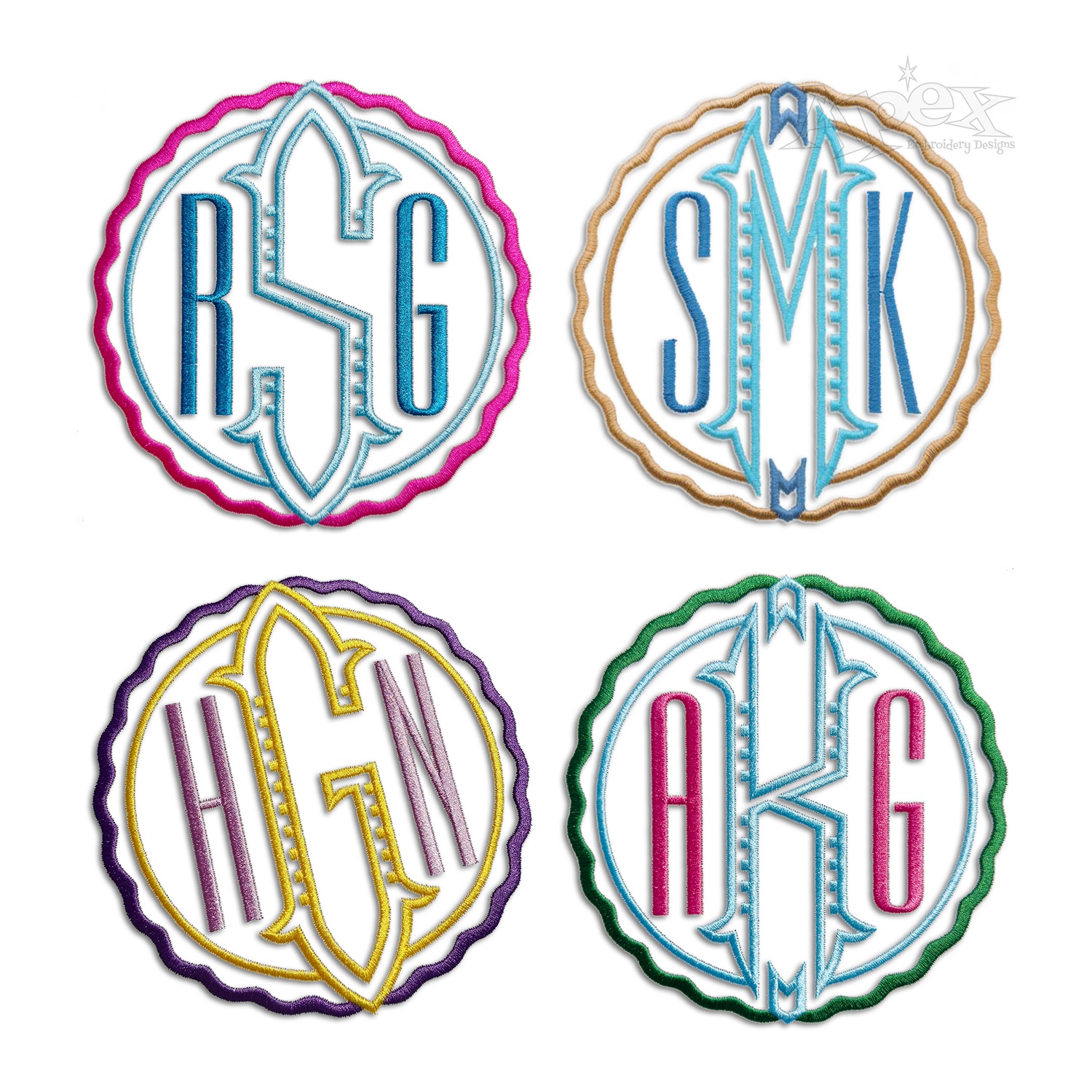
Label Monogram Embroidery Font
Create label scallop full circle round style personalized gifts and home d?cor with Ribbed Font. Scallop circle round featuring a classic ribbed stylish 2-color embroidery monogram set is perfect for customizing hats, linens, towels, baby gifts, tote bags, and more.